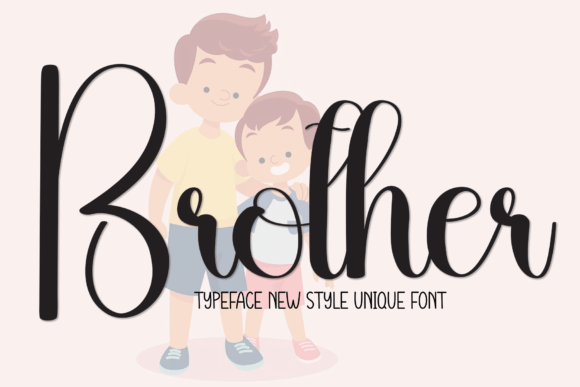
The Brother Font: A Sweet and Friendly Handwritten Delight
Have you ever been in the middle of a design project, and suddenly, you’re stuck on finding the perfect font? I recall a recent experience where I was working on a wedding invitation design, and my client specifically asked for a “sweet and friendly” vibe. After scouring through numerous font libraries, I stumbled upon the Brother font, and it instantly became the perfect fit. In this article, we’ll dive into the world of Brother font, exploring its features, uses, and what makes it a fantastic addition to your design arsenal.
A Personal Review: What I Love About Brother Font
Here’s what makes Brother font stand out:
• ✨ Sweet and Friendly Vibe: The Brother font exudes a warm and approachable feel, making it perfect for designs that require a personal touch.
• ✅ Fresh and Neat: The font’s clean lines and neat appearance ensure that your designs look modern and sophisticated.
• ✅ Versatile: Brother font can be used for a wide range of design projects, from wedding invitations and cards to social media graphics and more.
While Brother font is an excellent choice, there are a few things to keep in mind:
• 🤔 Limited Character Set: Brother font might not have an extensive character set, which could limit its use in certain projects that require a wide range of special characters.
• ⚠️ Not Suitable for Body Text: Due to its handwritten nature, Brother font might not be the best choice for body text, especially in larger blocks of content.
The Brother font was designed with the intention of creating a sweet and friendly handwritten font. The designer aimed to craft a font that would be perfect for designs that require a personal touch, like wedding invitations and cards. With its clean lines and neat appearance, Brother font has become a popular choice among designers and crafters.
What is the Brother font best used for? The Brother font is ideal for designs that require a sweet and friendly touch, such as wedding invitations, cards, and social media graphics.
Is Brother font suitable for body text? No, Brother font is not recommended for body text due to its handwritten nature. It’s best used for headings, titles, or short paragraphs.